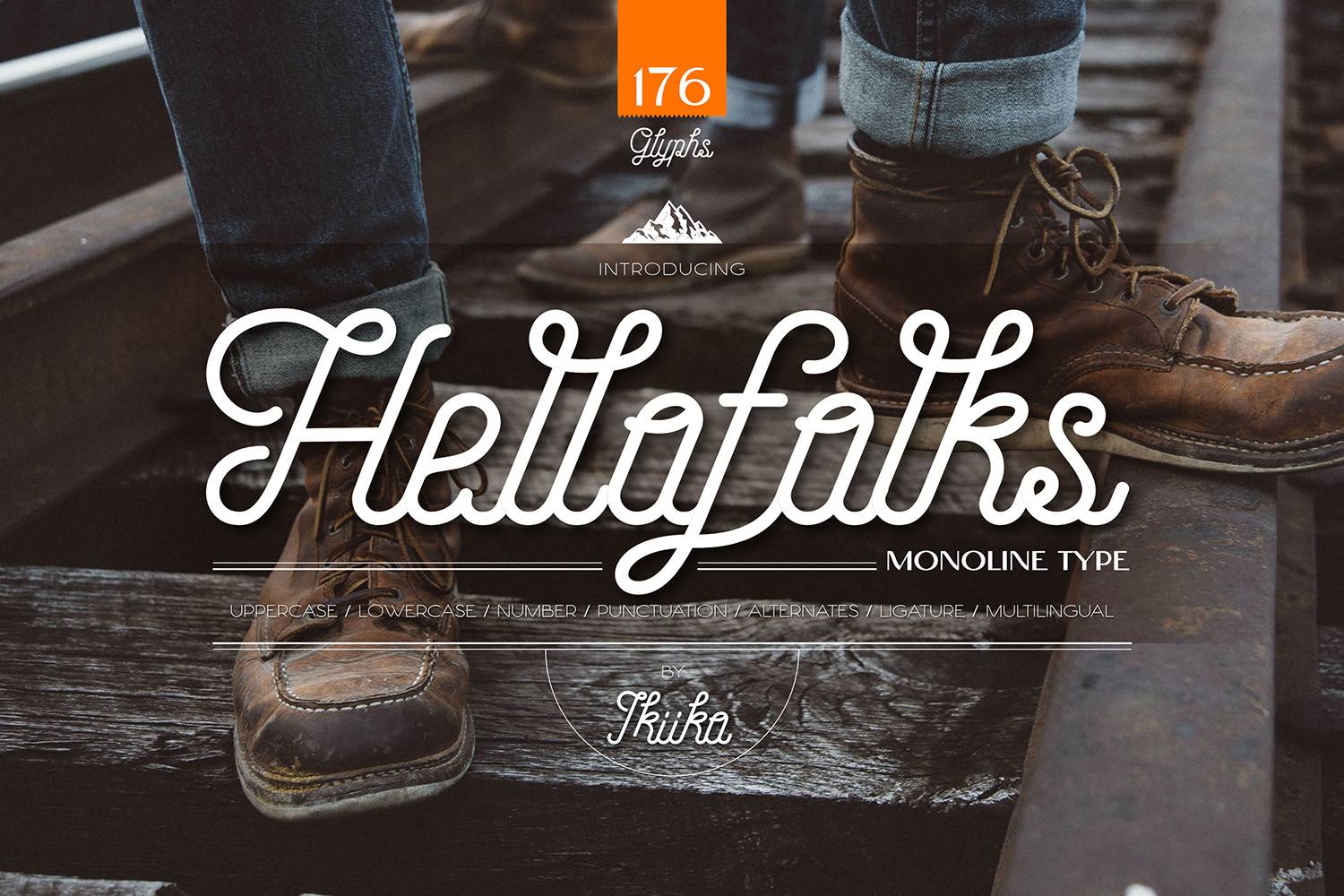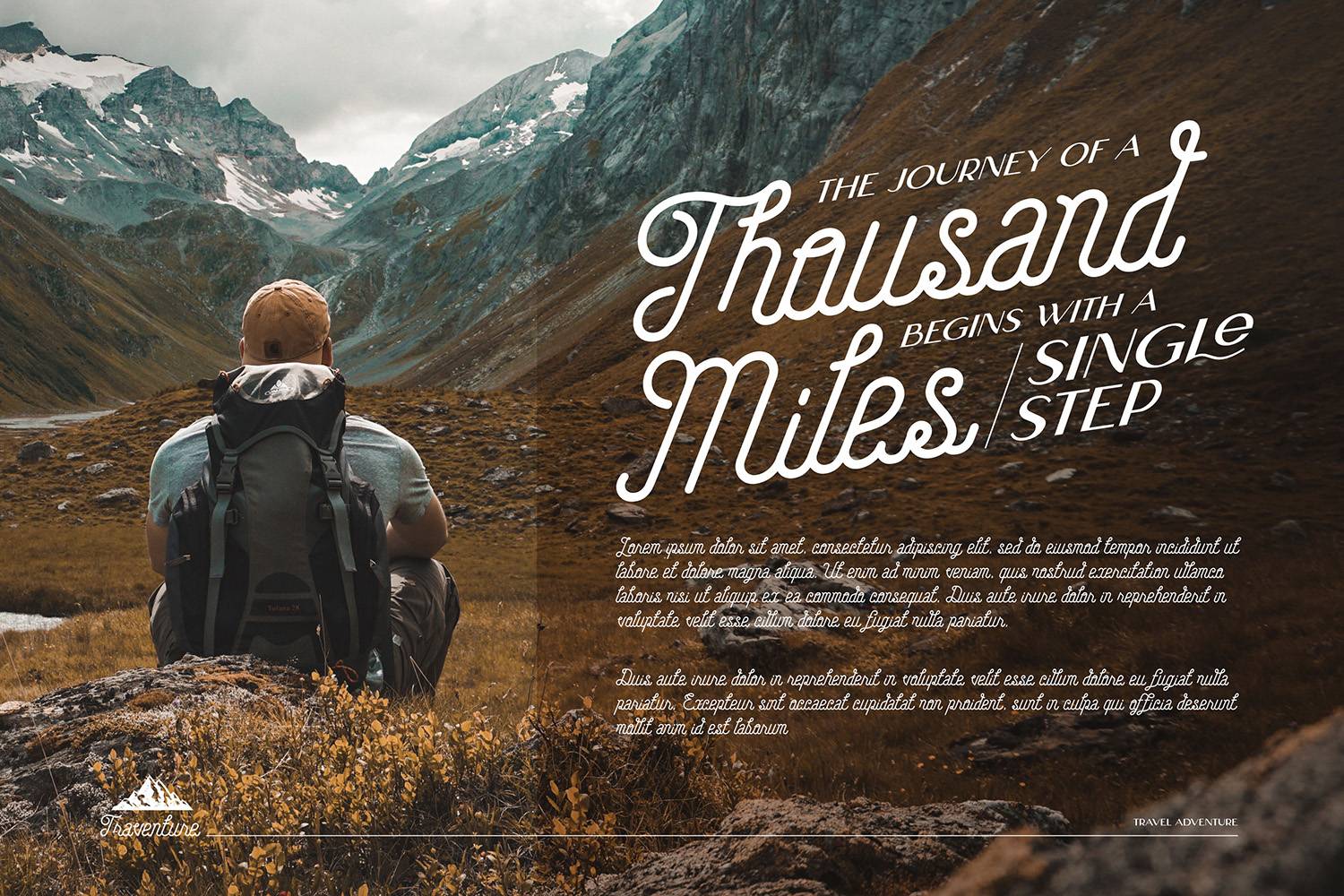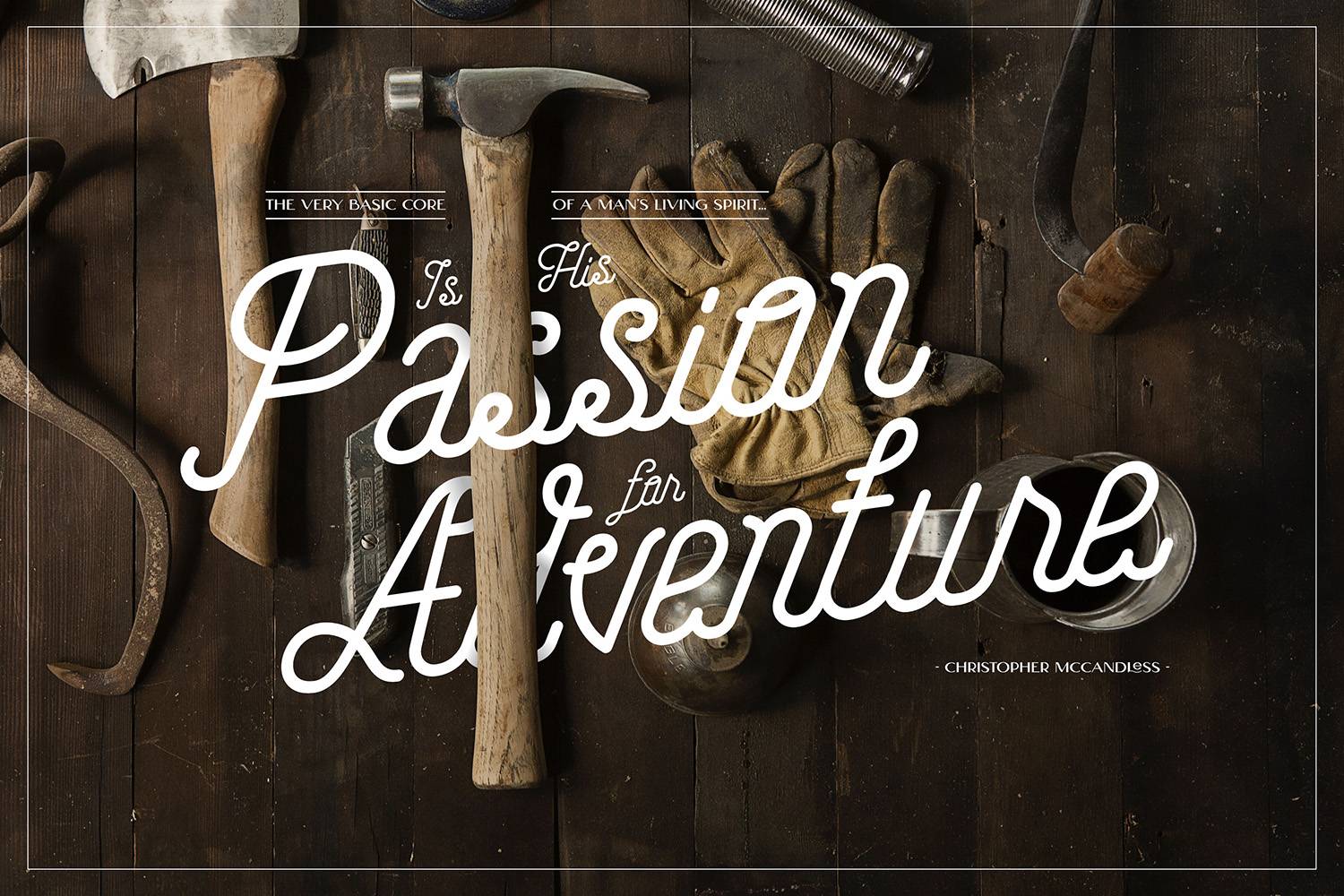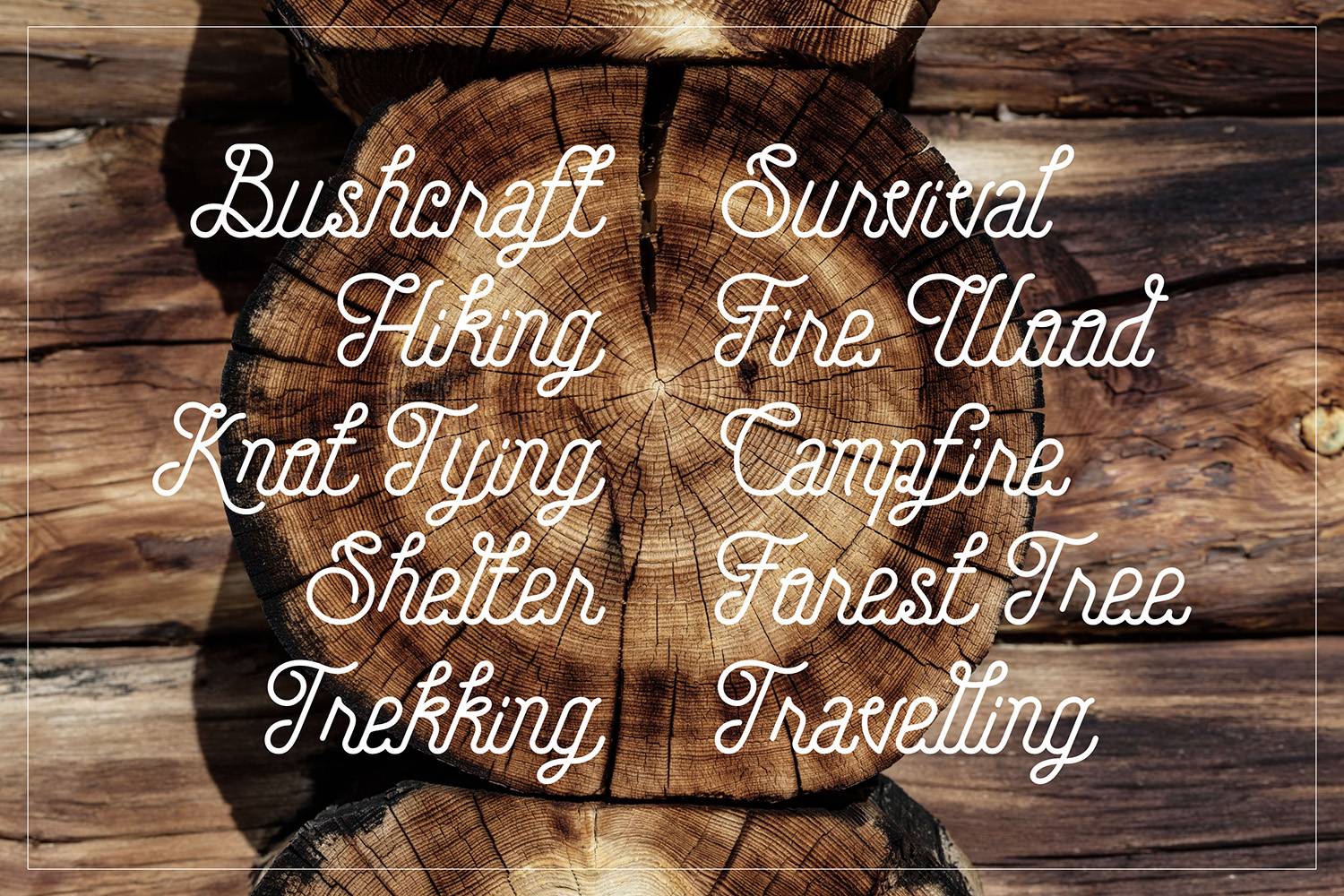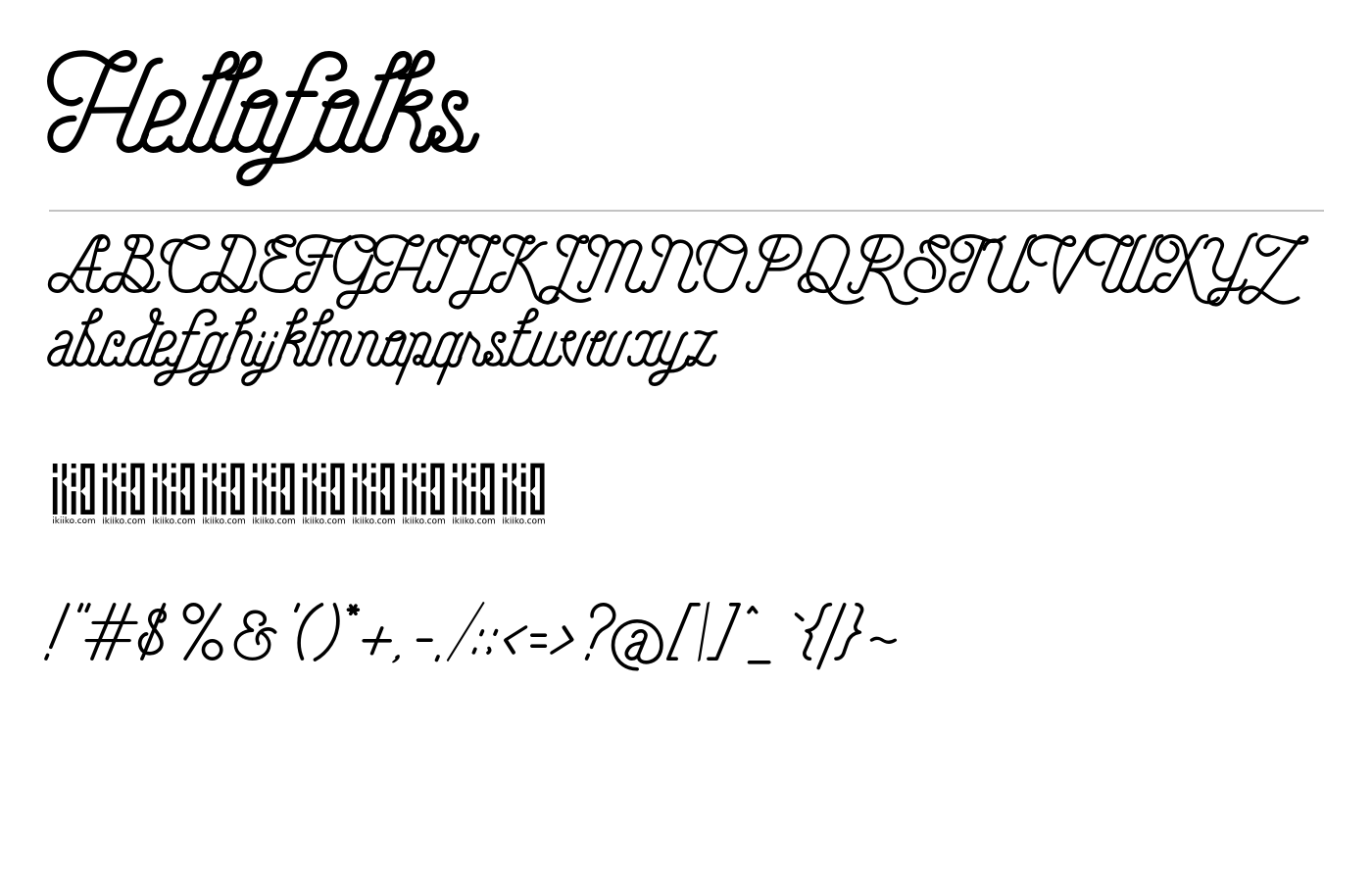
Hellofolks is a playful, elegant script font with a hand-drawn feel, featuring thin, flowing lines and distinctive loops that create a stylish, vintage-inspired look. Its cursive letterforms, with consistent stroke weight and unique character shapes, make it ideal for creative branding, invitations, and headlines where a charming, personable touch is desired. This font works best in decorative contexts that benefit from its light, airy personality and graceful style.
Hellofolks Font
About Hellofolks Font
| Font family | Hellofolks Font |
| Designer | ikiikowrk |